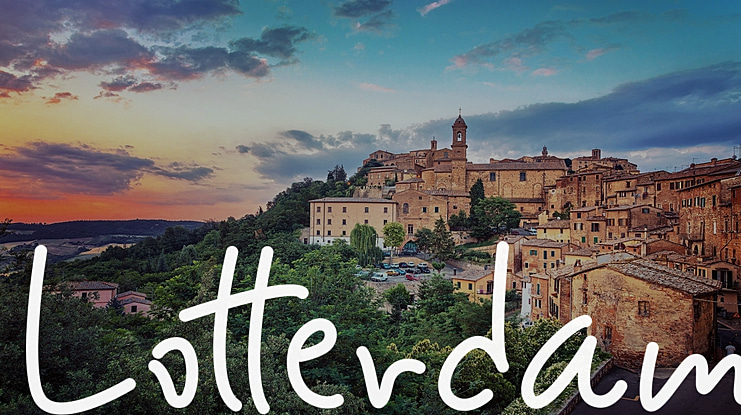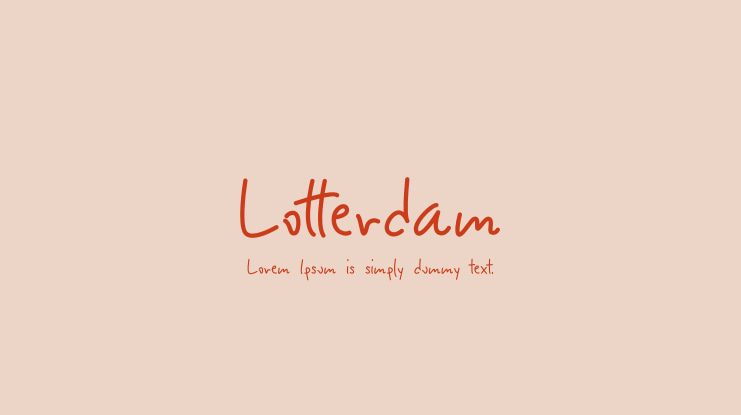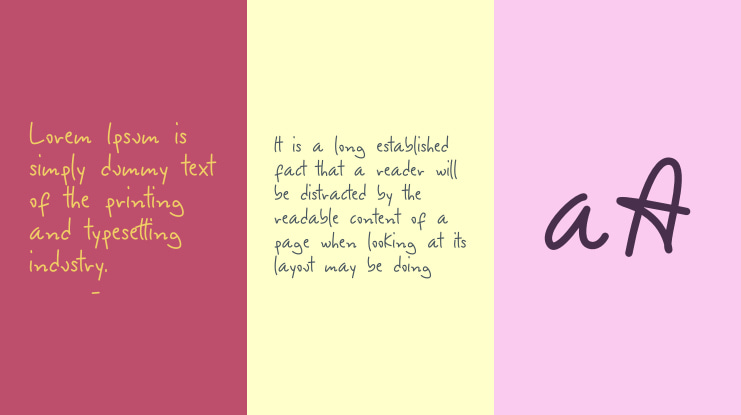
Lotterdam Font
Lotterdam is a unique script font that will easily give your designs a delicate and romantic impression. Its suitable for logos, quotes, advertisements, watermarks, and product designs.